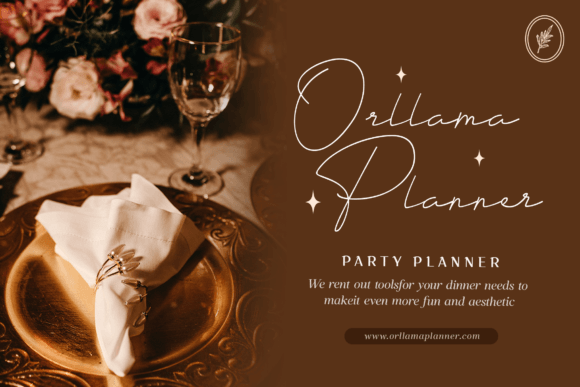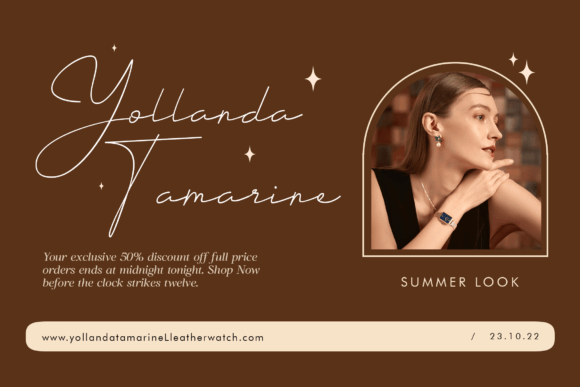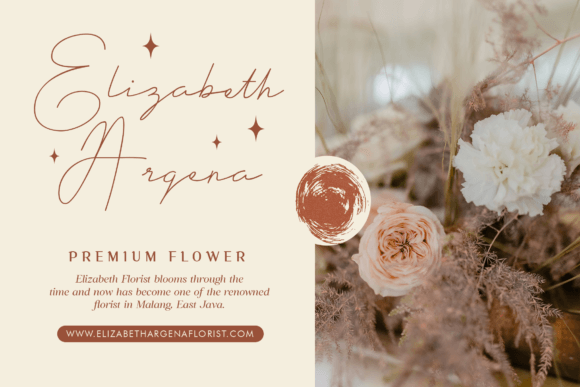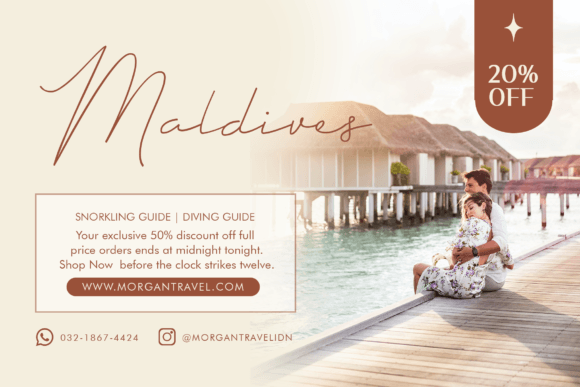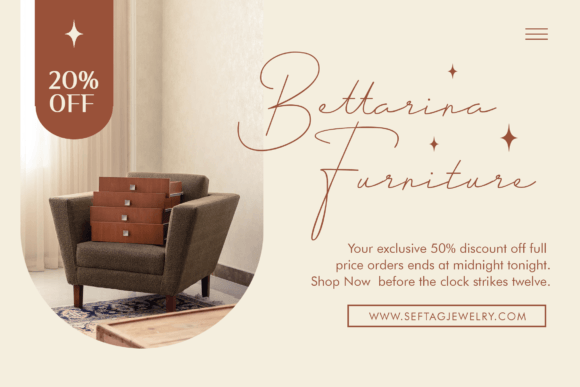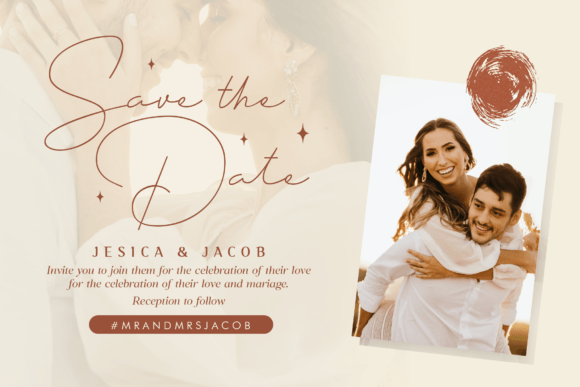
The Daily Coffee Font: A Designer’s New Best Friend
I’ll never forget the time I was working on a wedding invitation design project, and my client asked for a font that was ” elegant, yet playful, and totally Instagram-worthy.” I scoured the internet, tried out a gazillion fonts, but nothing seemed quite right. That was until I stumbled upon the Daily Coffee font. It’s been a game-changer for my design projects ever since!
- ✨ The unique flow and easy handwritten style make it perfect for a wide range of design projects.
- ✅ It’s incredibly versatile – from wedding designs to social media graphics, and even modern advertising.
- 💕 The aesthetic is both feminine and sophisticated, making it ideal for branding and stationery design.
- 🎉 The font comes with a range of OpenType features, glyphs, and stylistic alternates, giving you plenty of creative options.
While Daily Coffee is an amazing font, there are a few things to keep in mind:
- ⚠️ Some of the more intricate glyphs and alternates can be a bit finicky to access, especially for beginners.
- 🤔 The font might not be the best fit for very long blocks of text, as it’s designed to be more decorative.
The Story Behind Daily Coffee
Daily Coffee was designed with the intention of creating a beautiful, everyday font that would be perfect for a wide range of design projects. The designer wanted to create a font that was both elegant and approachable, with a unique flow that would make it stand out. And I think they totally succeeded!
Q: What makes Daily Coffee so special?
A: Daily Coffee’s unique flow and easy handwritten style make it perfect for a wide range of design projects, from wedding designs to modern advertising.
Q: Is Daily Coffee suitable for long blocks of text?
A: While Daily Coffee is a beautiful font, it’s designed to be more decorative. It might not be the best fit for very long blocks of text, but it’s perfect for short and sweet projects.